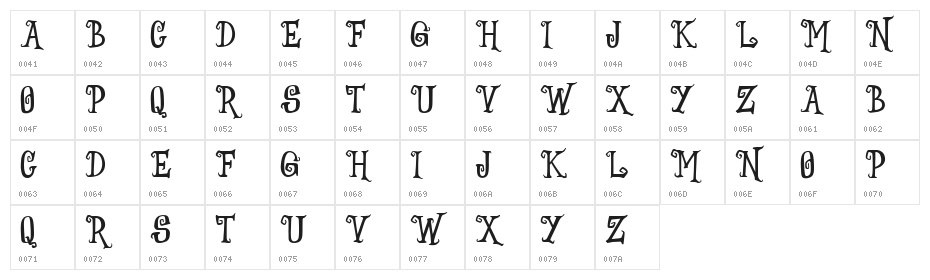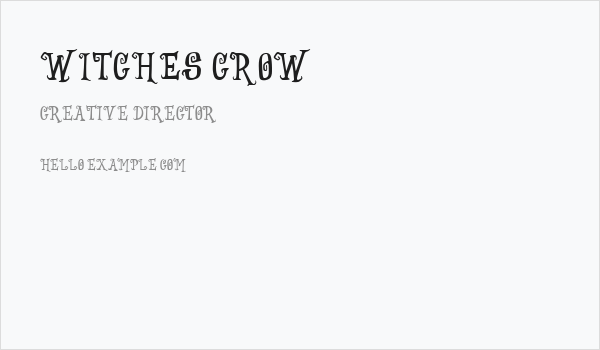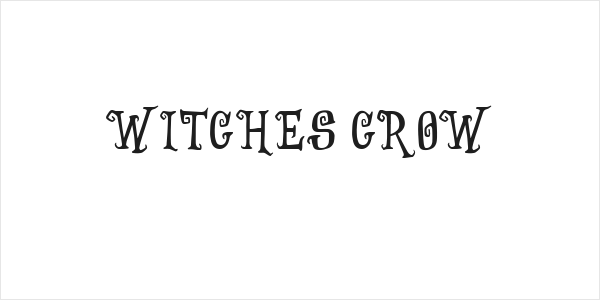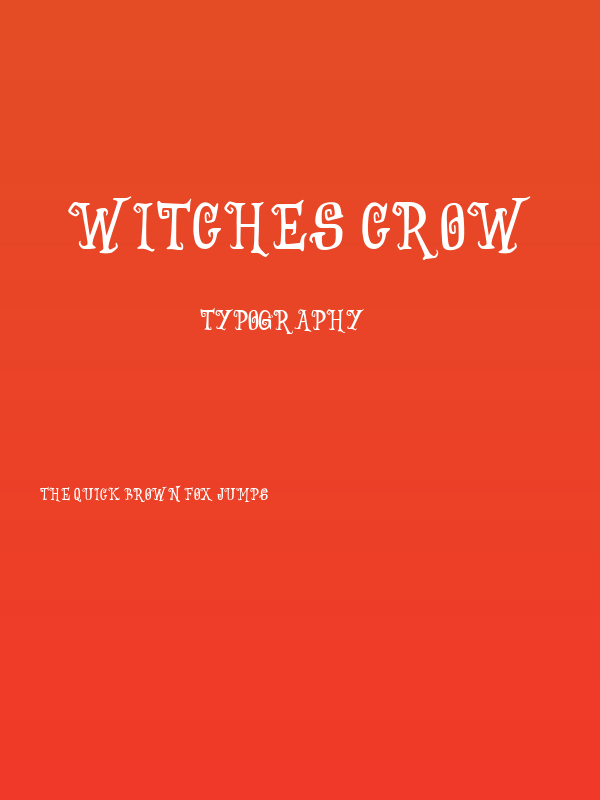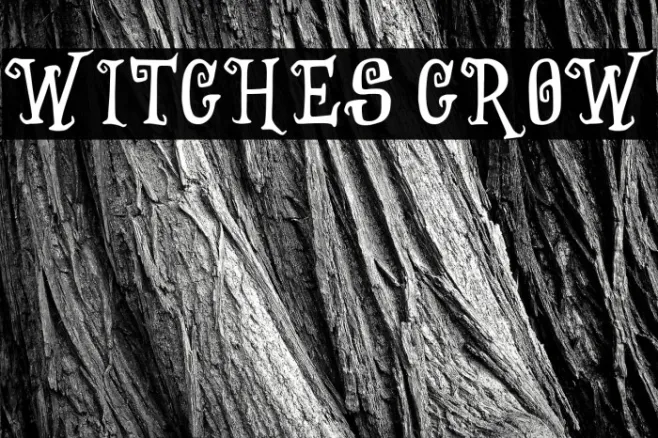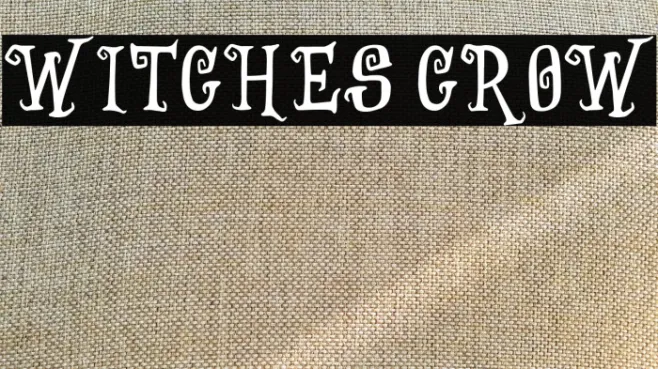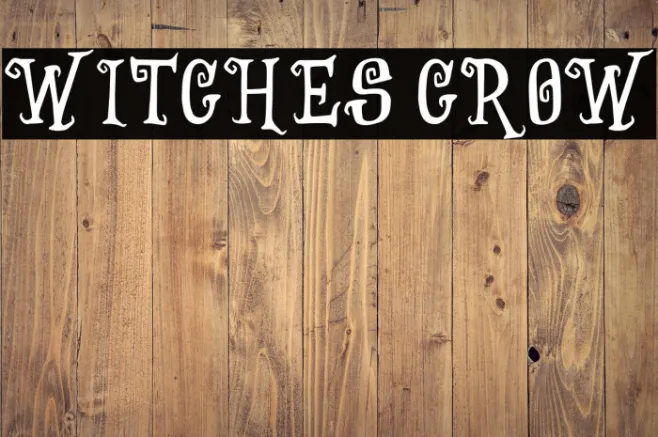
Witches Crow Font
Witches Crow Description
This font features a whimsical and decorative style, characterized by its playful curves and unique serifs. Each letter is crafted with intricate details, giving it a slightly gothic and mysterious appearance. The strokes are moderately thick, with occasional flourishes that add to its enchanting aesthetic. The font maintains a consistent baseline, yet the varying heights and embellishments of the characters create a dynamic and engaging visual flow. Its distinctive style makes it suitable for creative and themed projects, where a touch of fantasy or magic is desired.
| Proposed Projects | Ideal for Halloween-themed designs, fantasy book covers, magical event invitations, and decorative posters. |